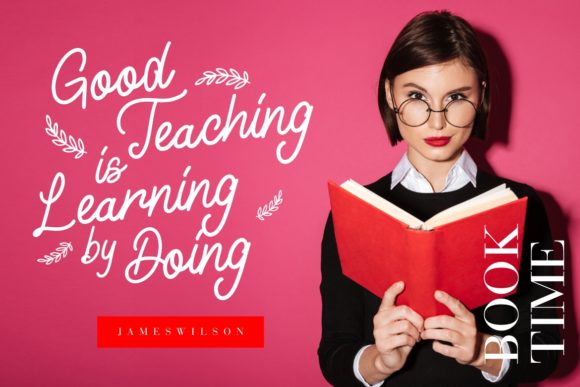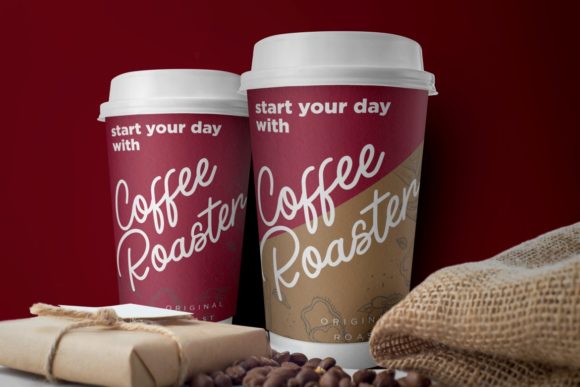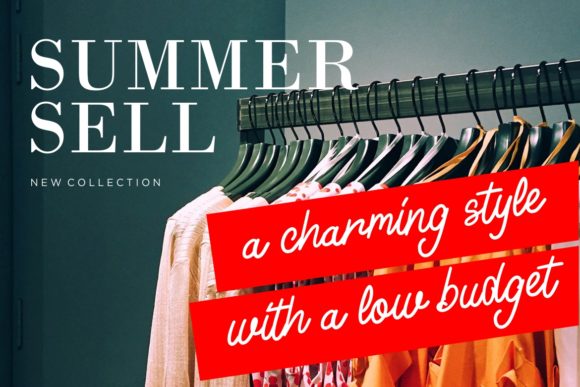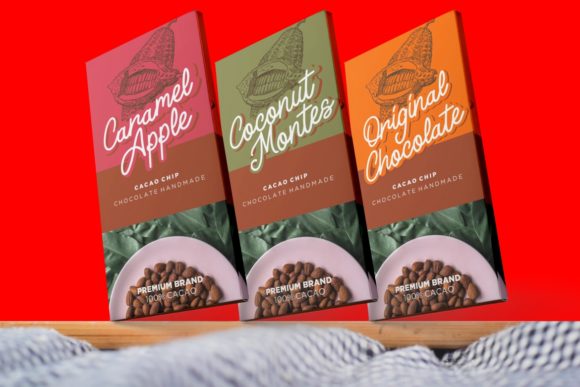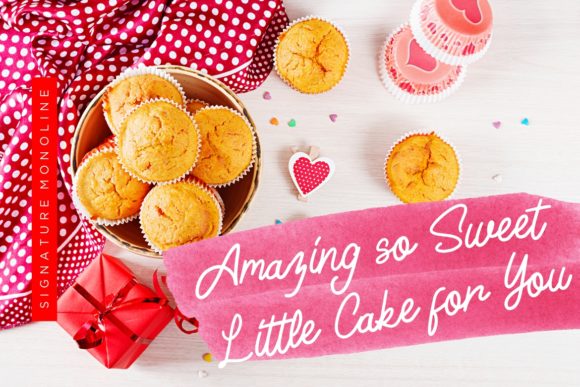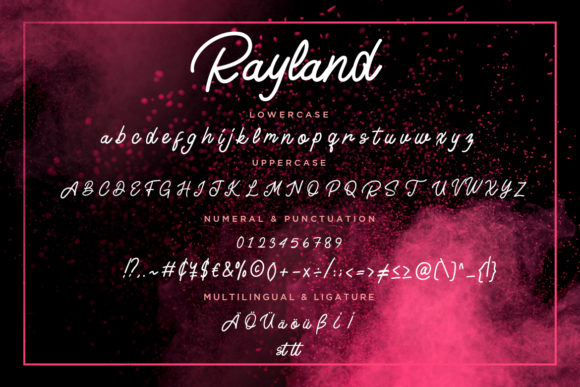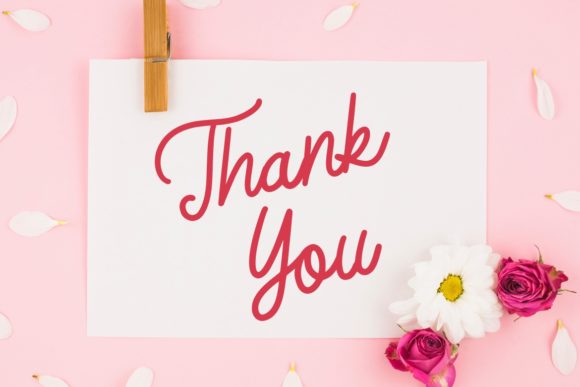
HomeScript FontsRayland Font Script Fonts Rayland Font FacebookXPinterestWhatsApp Rayland Font Poster 2 Rayland Font Poster 3 Rayland Font Poster 4 Rayland Font Poster 5 Rayland Font Poster 6 Rayland Font Poster 7 Rayland Font Poster 8 About Rayland Font Rayland is a cute and simple script, ideal for any designs that require a casual and friendly twist. DOWNLOAD ON CREATIVE FABRICAThis font is sold and delivered by Creative Fabrica. Font Canyon may earn a commission if you buy through this link. People also explored Journey for Jungle Font Oatmilk Font Happy Font Buckey Petty Font Glorynesia Bitterlove Font Honeys Font Roppy Easter Font Cat Font 273 0 TagsRayland Font Previous articleGlossy Night FontNext articleDettachment Font LEAVE A REPLY Cancel reply Comment: Please enter your comment! Name:* Please enter your name here Email:* You have entered an incorrect email address! Please enter your email address here Website: Save my name, email, and website in this browser for the next time I comment. Personal Use Free Ammanda Personal Use Free Read more about this font BD Algebra Personal Use Free Read more about this font Zroest Personal Use Free Read more about this font Rheiborn Personal Use Free Read more about this font BLOG The 10 Best Handwriting Fonts to Add Personality to Your Designs 10 of the Best Handwriting Fonts for Adding Personality to Your Designs There will undoubtedly be no other better choice than handwriting fonts to give... Where to Buy American Fonts Online in 2024 Exploring Font Trends Top 10 Handwritten Fonts That Elevate Your Designs